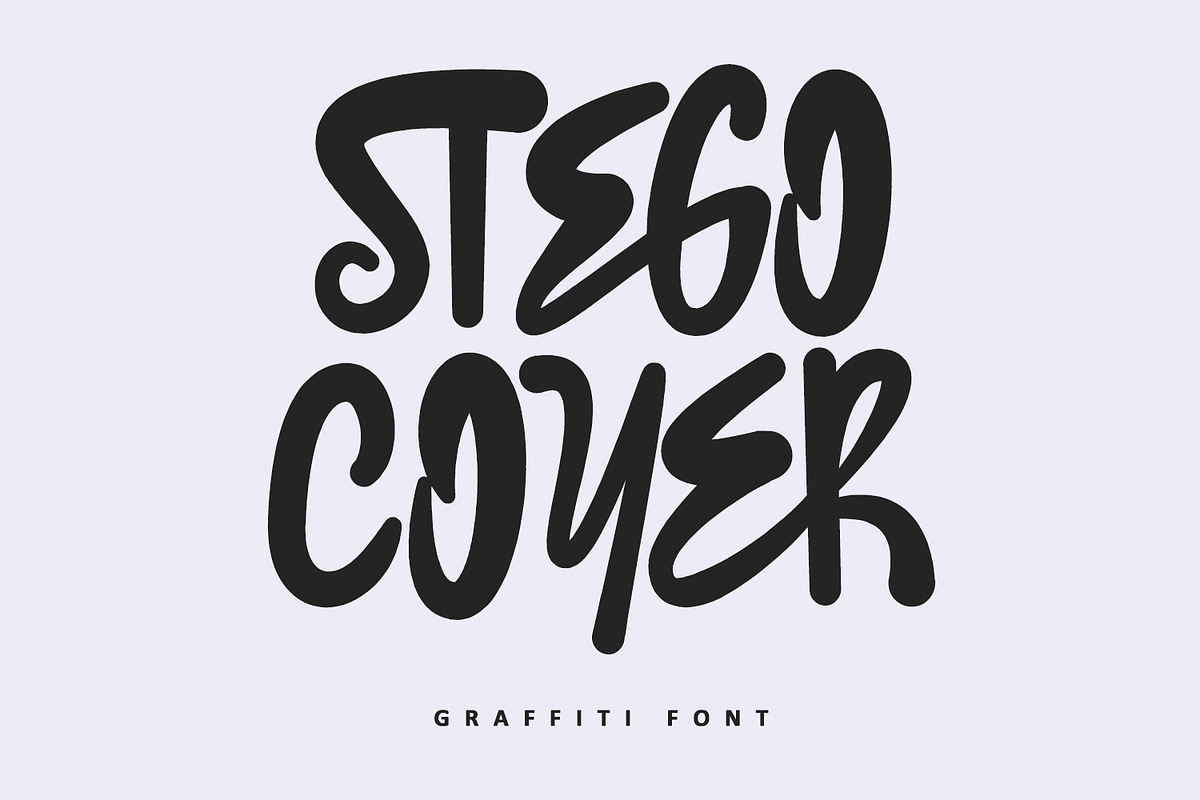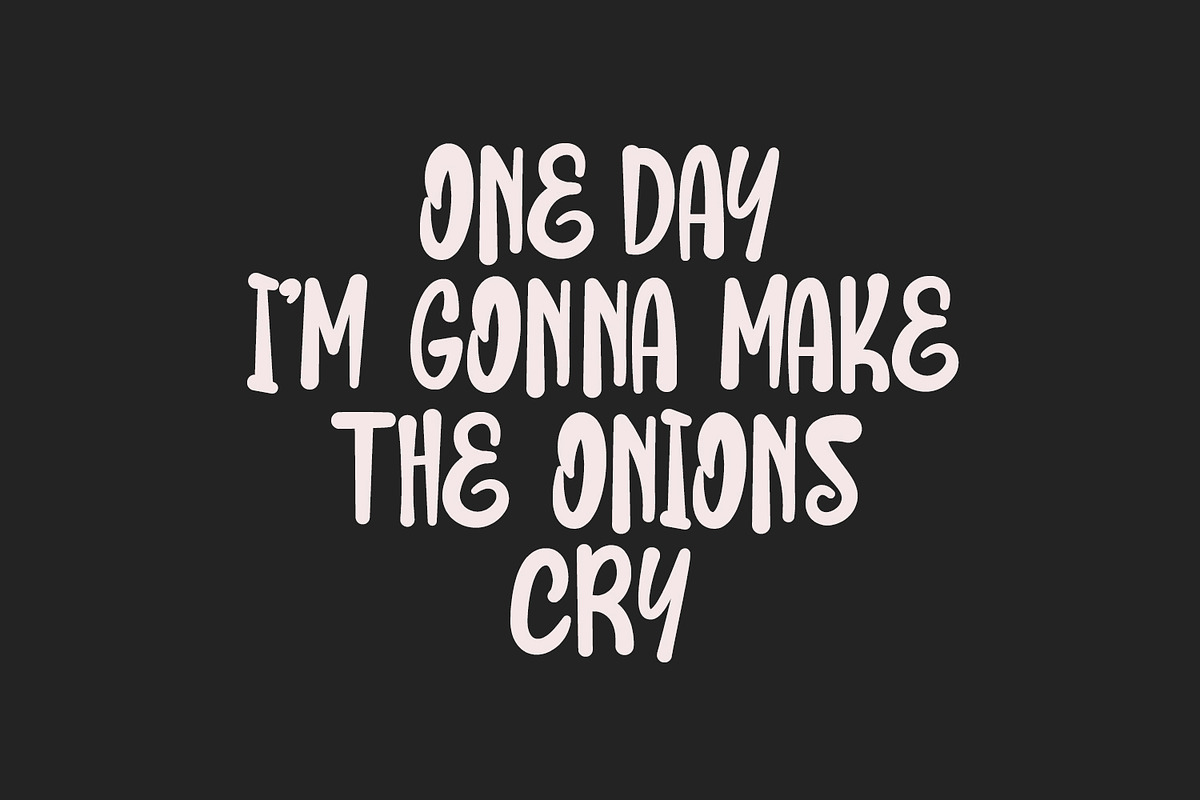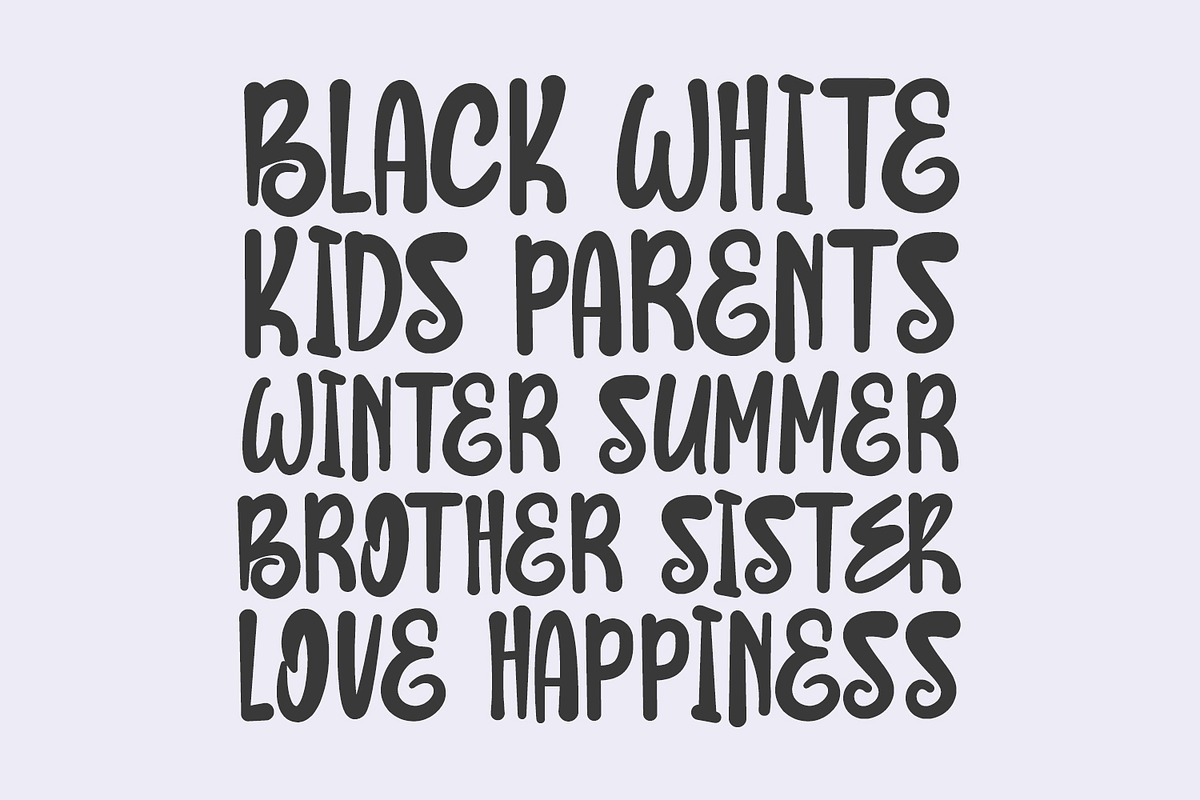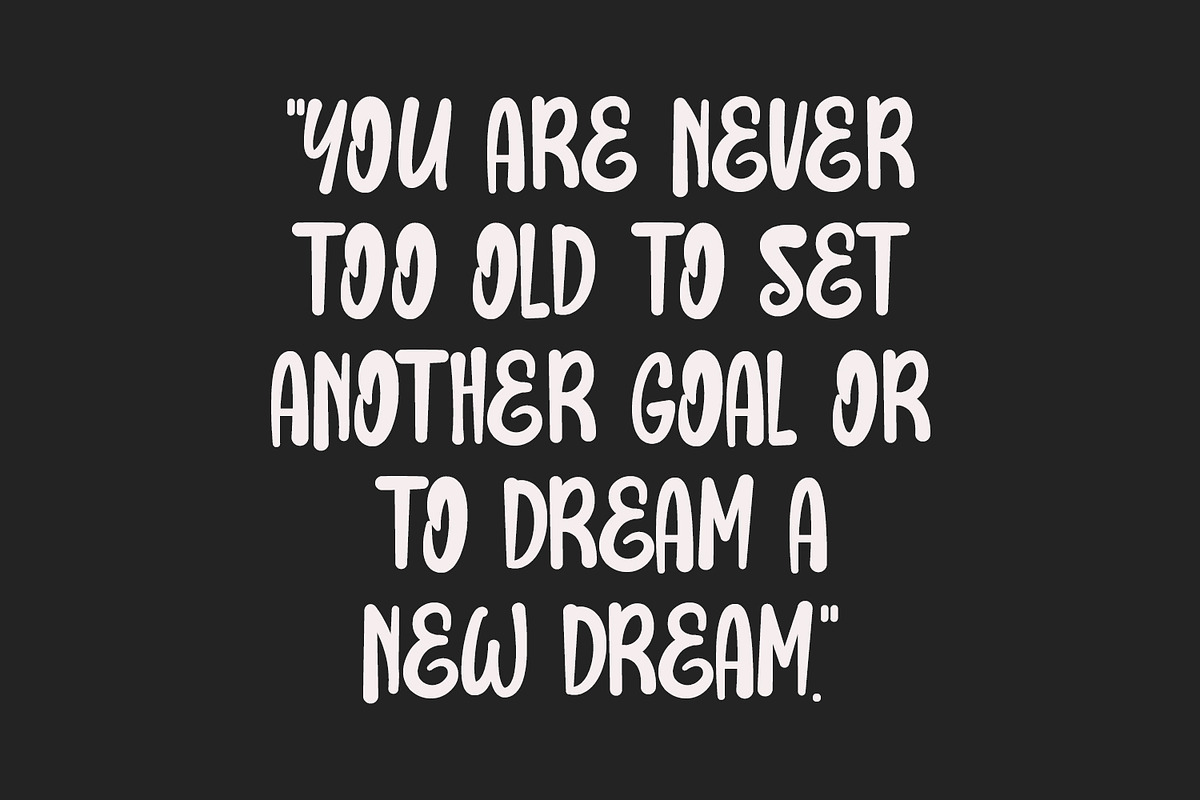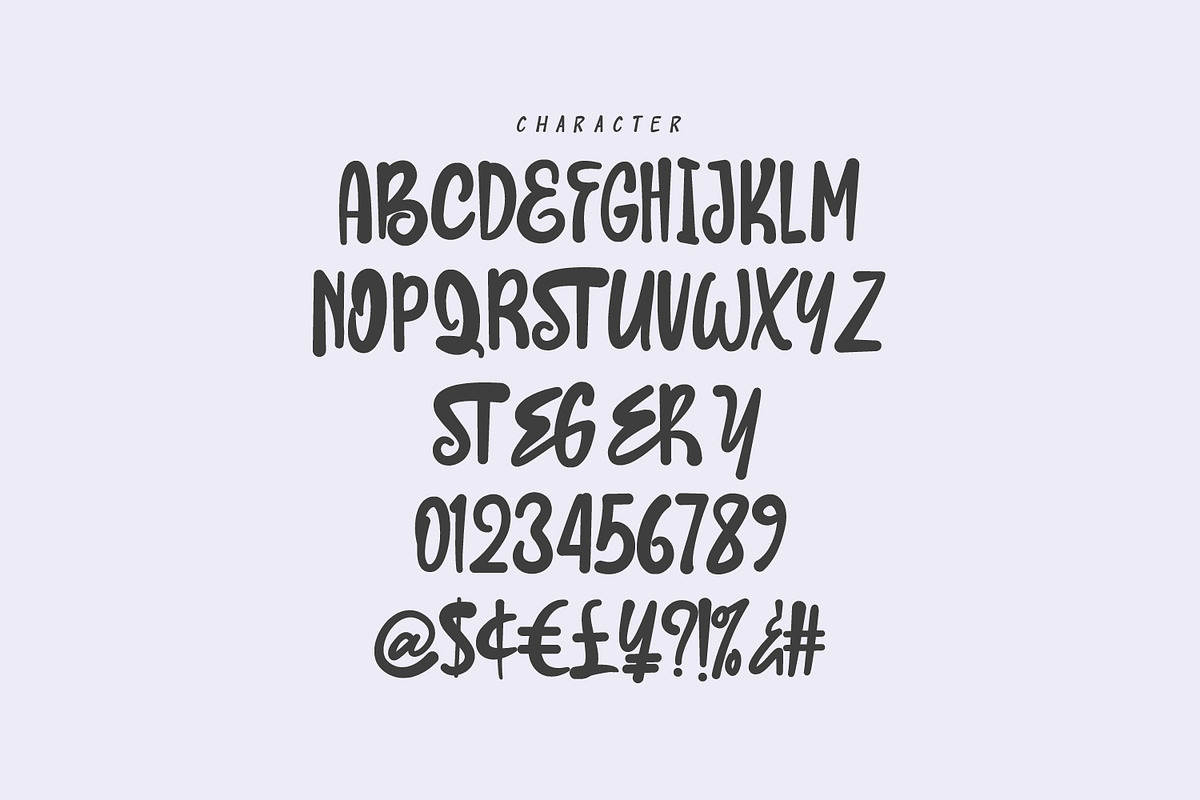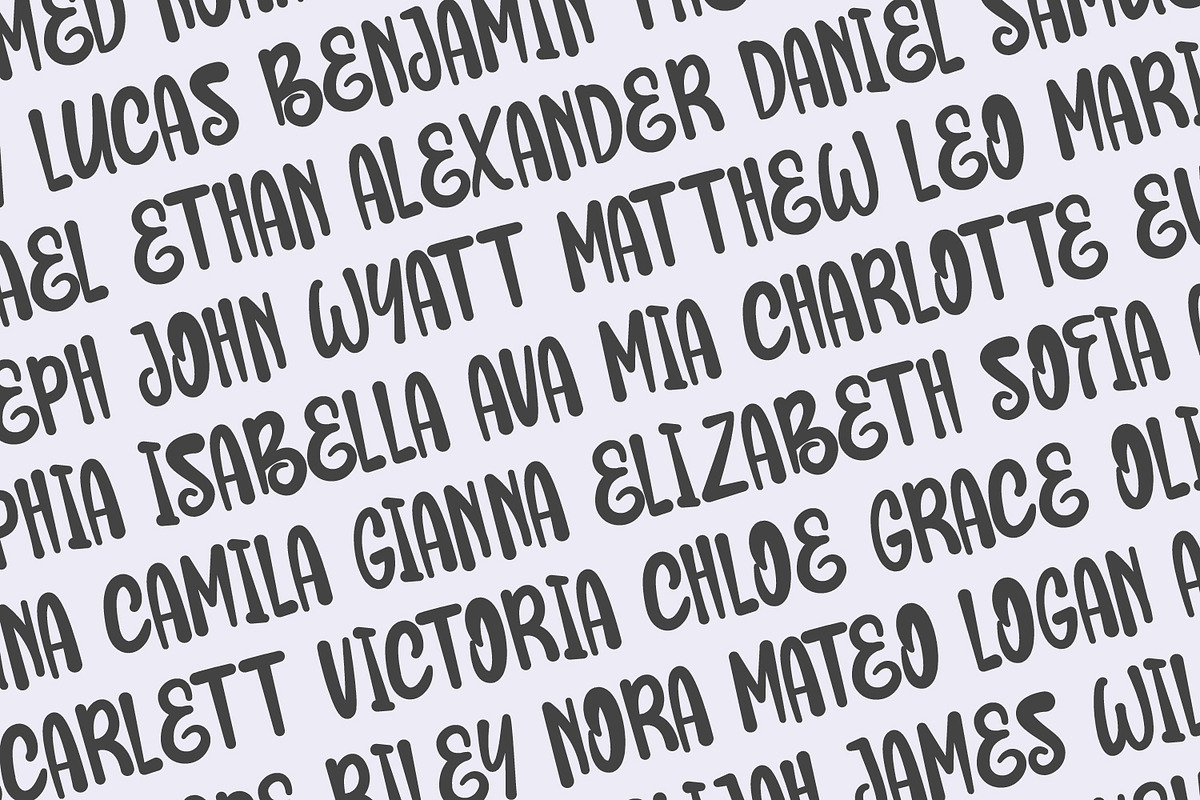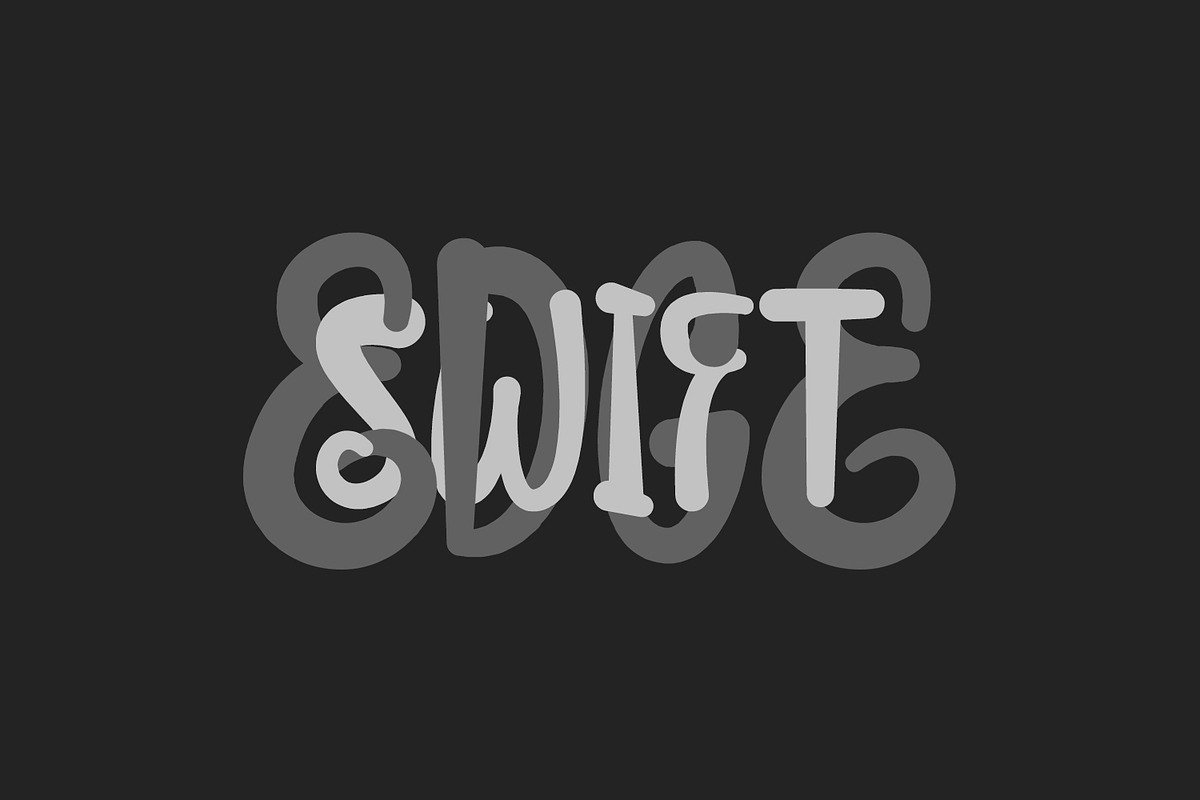
Stego Coyer Authentic Graffiti Brush
Stego Coyer - The Authentic Graffiti Brush Font
Unleash the urban energy in your designs with Stego Coyer, a bold, handcrafted graffiti-style font that screams street attitude and fun!
Inspired by authentic street art and tag styles, this font is perfectly suited for designs that need a touch of raw, vibrant, and energetic flair. Its bouncy baseline, playful curves, and thick brush strokes bring an unmistakable youthful and rebellious spirit to any project.
- Apparel: T-shirts, hoodies, street fashion branding.
- Branding & Logos: Youth brands, skate shops, music labels, or anything with an edgy vibe.
- Posters & Covers: Album art, event posters, book covers, and social media graphics.
- Packaging: Products targeting a young, creative audience.
And much more! Use it for quotes, headers, movie titles, or any project that needs to stand out with a bold, urban aesthetic.
Features Included:
- Full Set of Uppercase Letters: Giving you versatility for different design needs.
- Numerals & Punctuation: Essential characters for complete text.
- Ligatures and Alternates: Add a truly hand-drawn feel and variety to your typography (as seen in the preview images).
- Multilingual Support: Reach a wider audience with extensive language options.